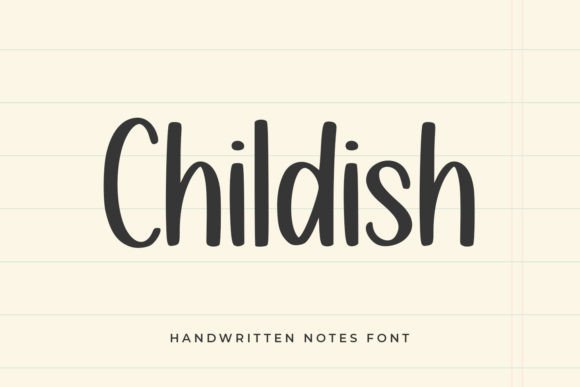
Introducing CHILDISH: The Ultimate Handwritten Notes Font for Creative Projects
In the world of digital design, fonts play a crucial role in conveying the tone and personality of a brand or creative project. A well-chosen font can elevate a design from ordinary to extraordinary, making it more engaging and memorable for the audience. If you’re looking for a font that adds a touch of playfulness and whimsy to your designs, look no further than CHILDISH, a beautiful handwritten notes font from Abo Daniel Studio.
What is CHILDISH?
CHILDISH is a simple yet charming font that is perfect for a wide range of creative projects, including branding, notes, quotes, logos, t-shirt designs, tote bag designs, cards, banners, social media, and more. Its handwritten style gives it a friendly and approachable feel, making it ideal for designers who want to add a personal touch to their work.
Key Features of CHILDISH
- Uppercase and Lowercase Letters: CHILDISH includes both uppercase and lowercase letters, giving you the flexibility to create a wide range of designs.
- Numerals: The font includes numerals, making it suitable for designs that require numbers, such as posters, flyers, and social media graphics.
- Multilingual Support: CHILDISH supports multiple languages, making it a great choice for designers who work with international clients or want to create designs for a global audience.
- Punctuation: The font includes a range of punctuation marks, ensuring that you can create grammatically correct and visually appealing designs.
What Can You Use CHILDISH For?
CHILDISH is a versatile font that can be used for a wide range of creative projects, including:
- Branding: Use CHILDISH to create a unique and memorable brand identity that stands out from the crowd.
- Notes and Quotes: Add a personal touch to your notes and quotes with CHILDISH’s handwritten style.
- Logos: Create a custom logo for your business or brand using CHILDISH.
- T-Shirt Designs: Use CHILDISH to create fun and playful t-shirt designs that are perfect for personal use or as a promotional item.
- Tote Bag Designs: Add a touch of whimsy to your tote bag designs with CHILDISH.
- Cards and Banners: Use CHILDISH to create custom cards and banners for special occasions.
- Social Media: Add a personal touch to your social media graphics with CHILDISH.
Why Choose CHILDISH?
There are many benefits to choosing CHILDISH for your creative projects, including:
- Unique and Memorable: CHILDISH’s handwritten style makes it a unique and memorable font that will help your designs stand out.
- Easy to Read: The font is easy to read, making it perfect for designs that require a lot of text.
- Versatile: CHILDISH can be used for a wide range of creative projects, making it a great addition to any designer’s toolkit.
- High-Quality: CHILDISH is a high-quality font that is designed to deliver exceptional results.